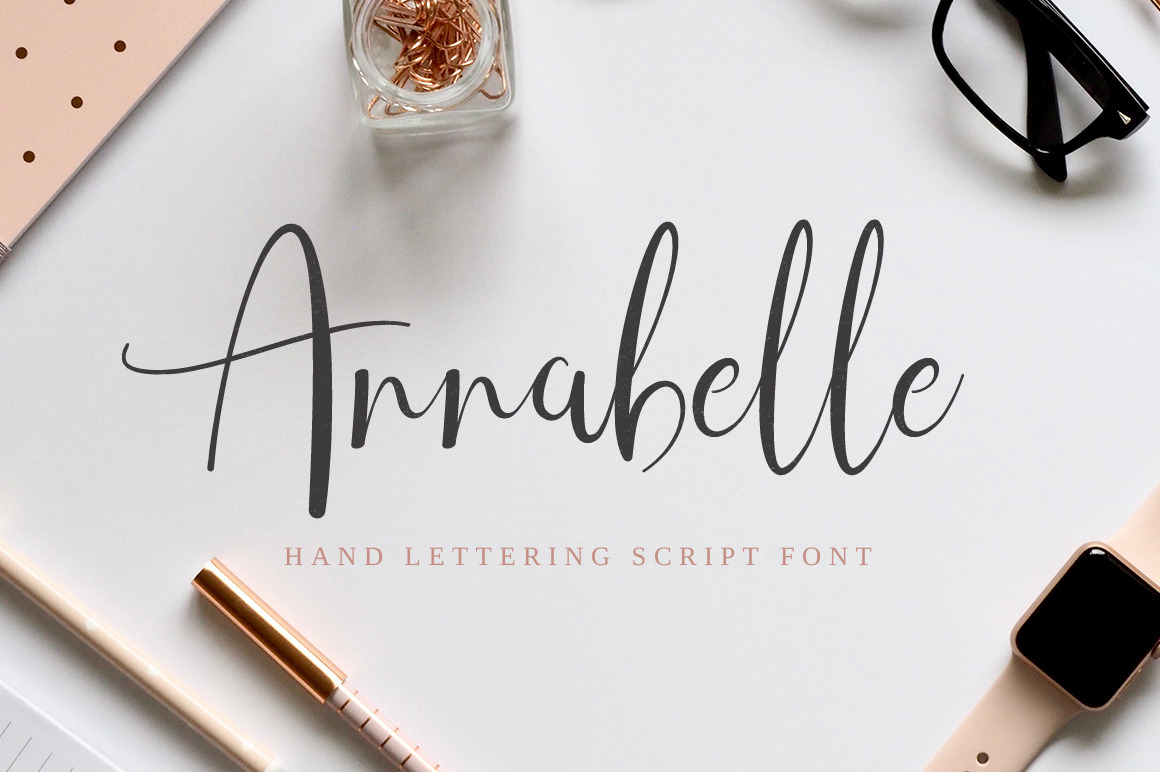
Annabelle is our new handwritten typeface which features calligraphic script elements. Annabelle has been created with beautiful headlines and logotypes in mind. It's mixed width strokes and looping characteristics will add an elegant feeling to your designs.
This hand lettering font includes all uppercase and lowercase letters, numbers and most common symbols and punctuation. And thanks to extensive kerning, Annabelle flows from letter to create beautiful cursive handwriting.